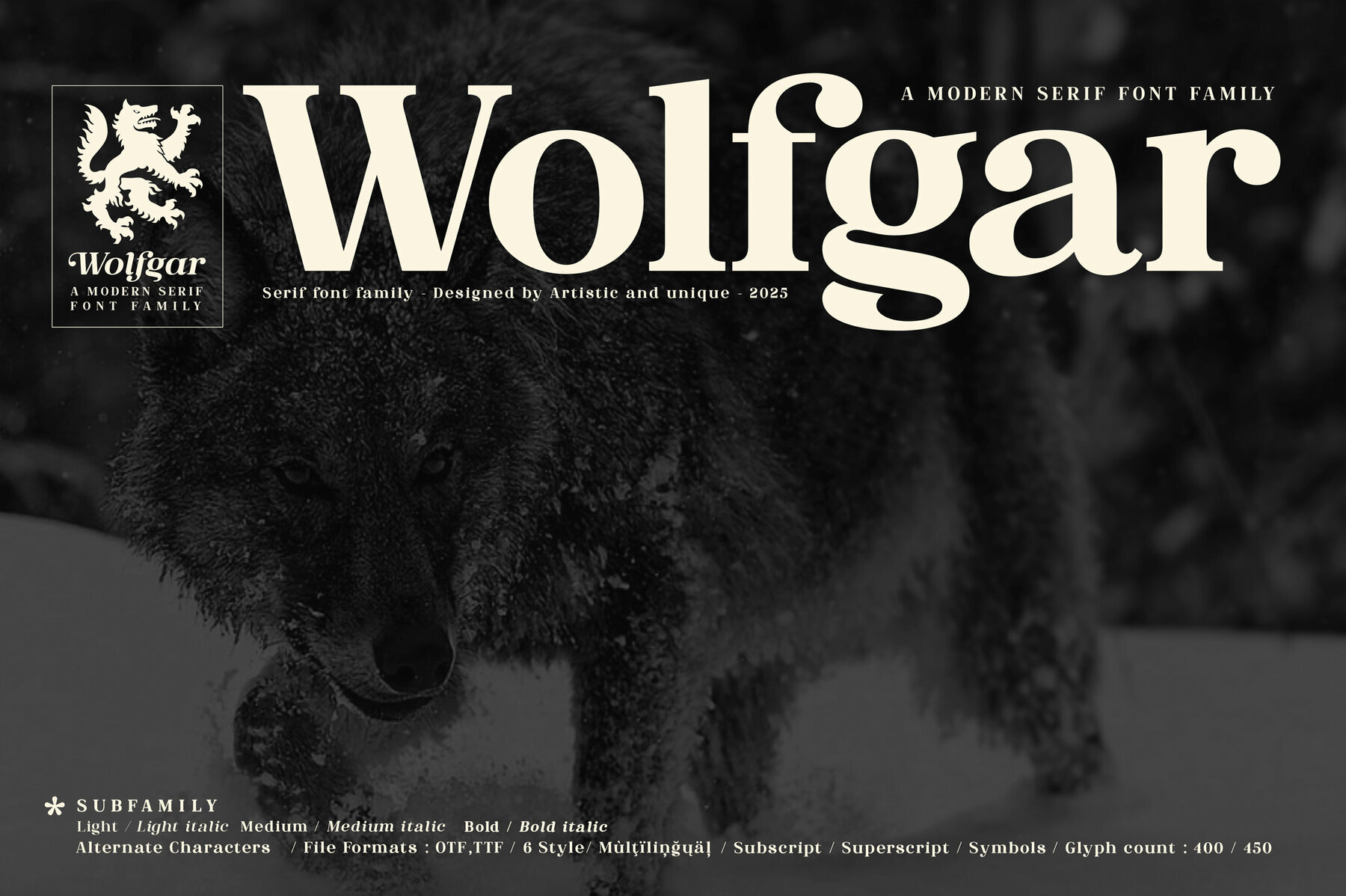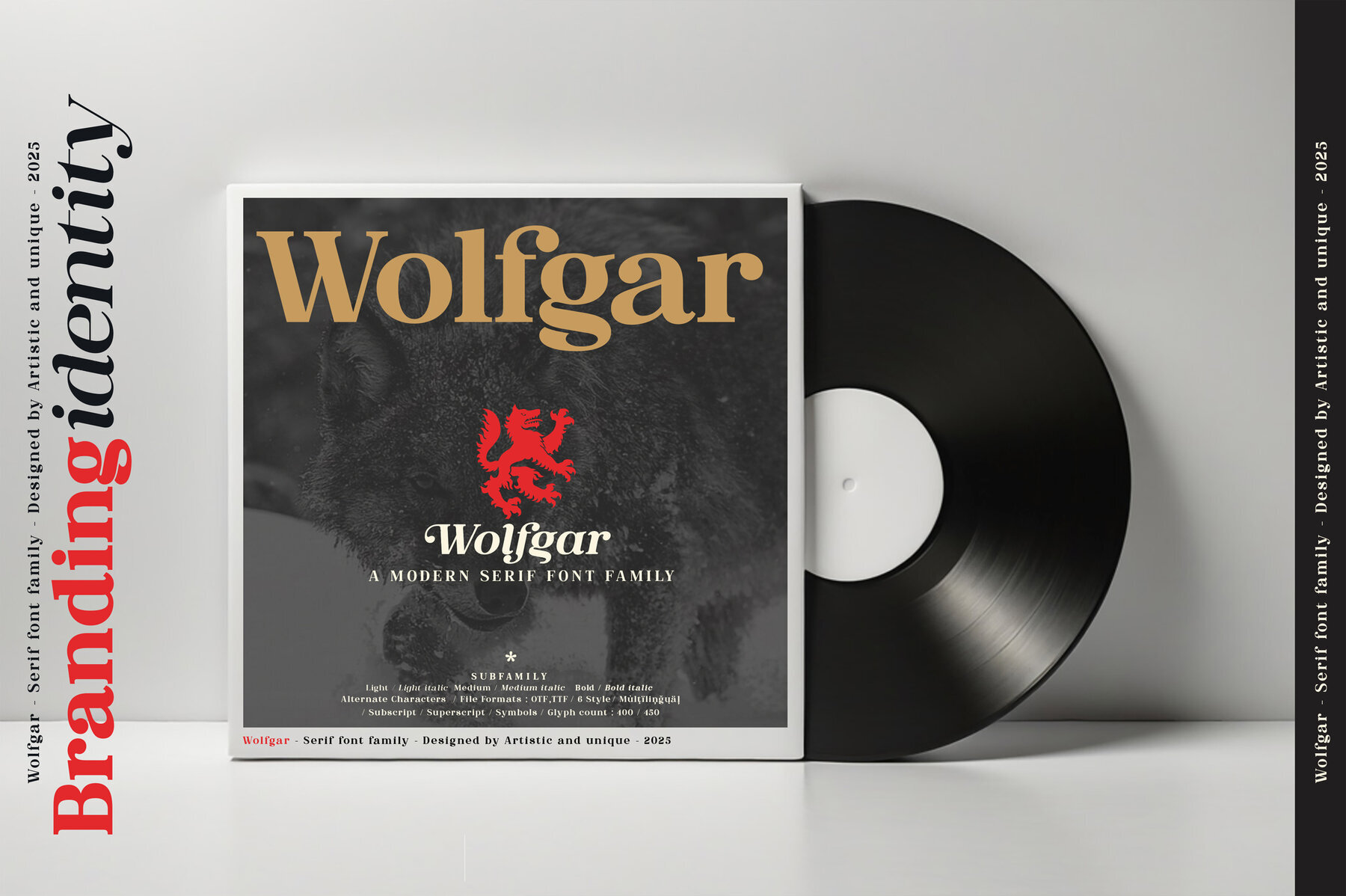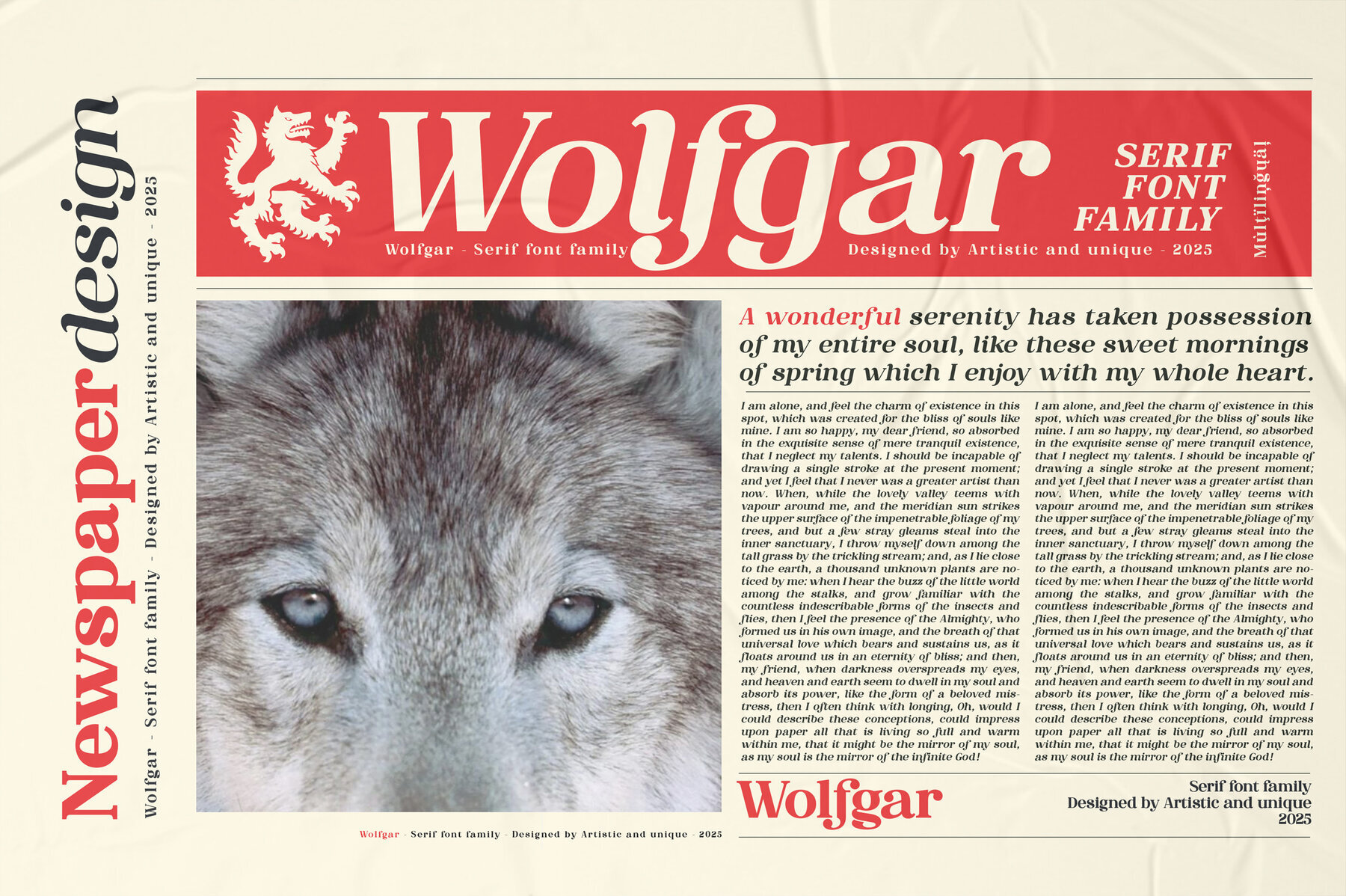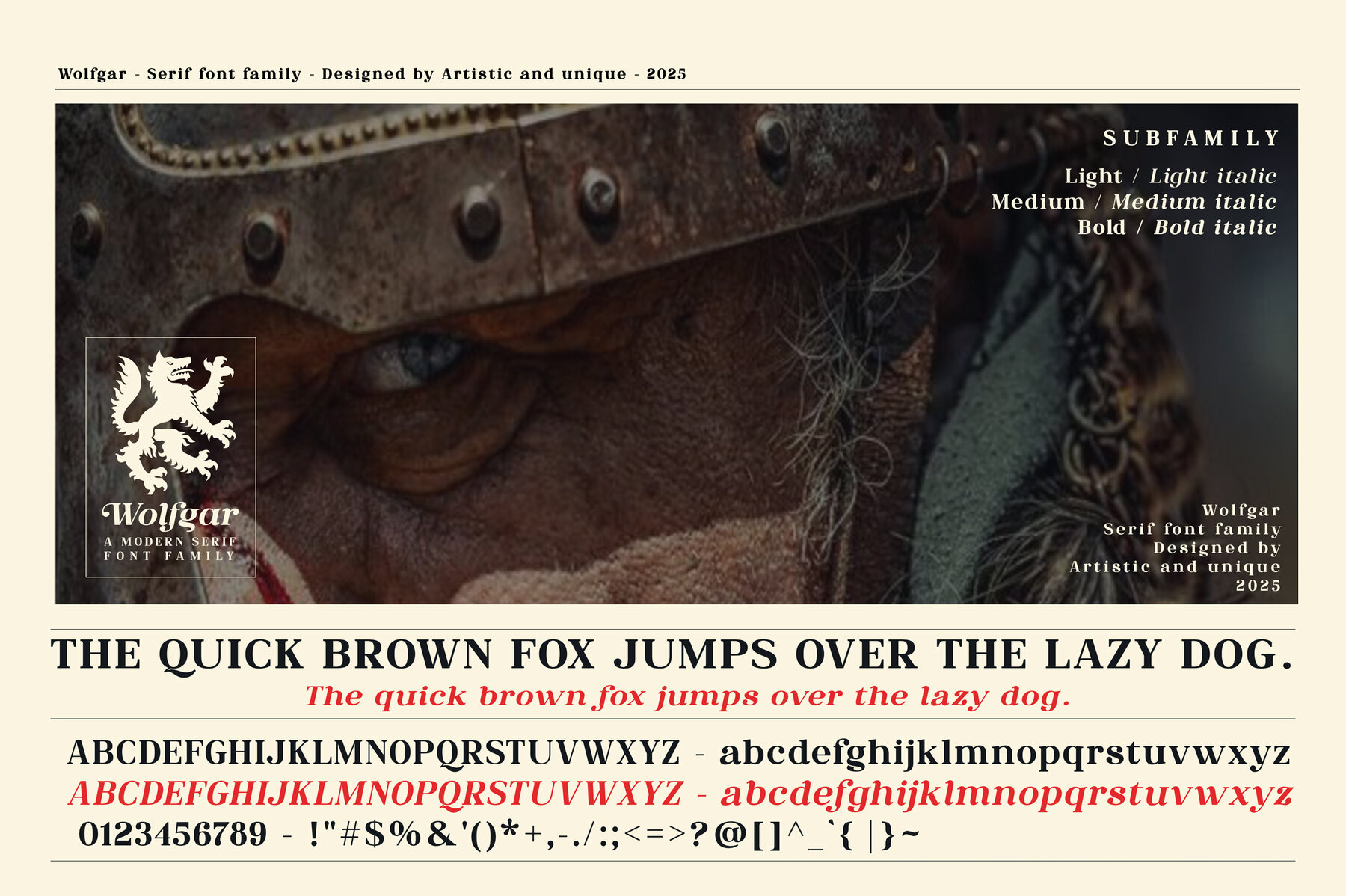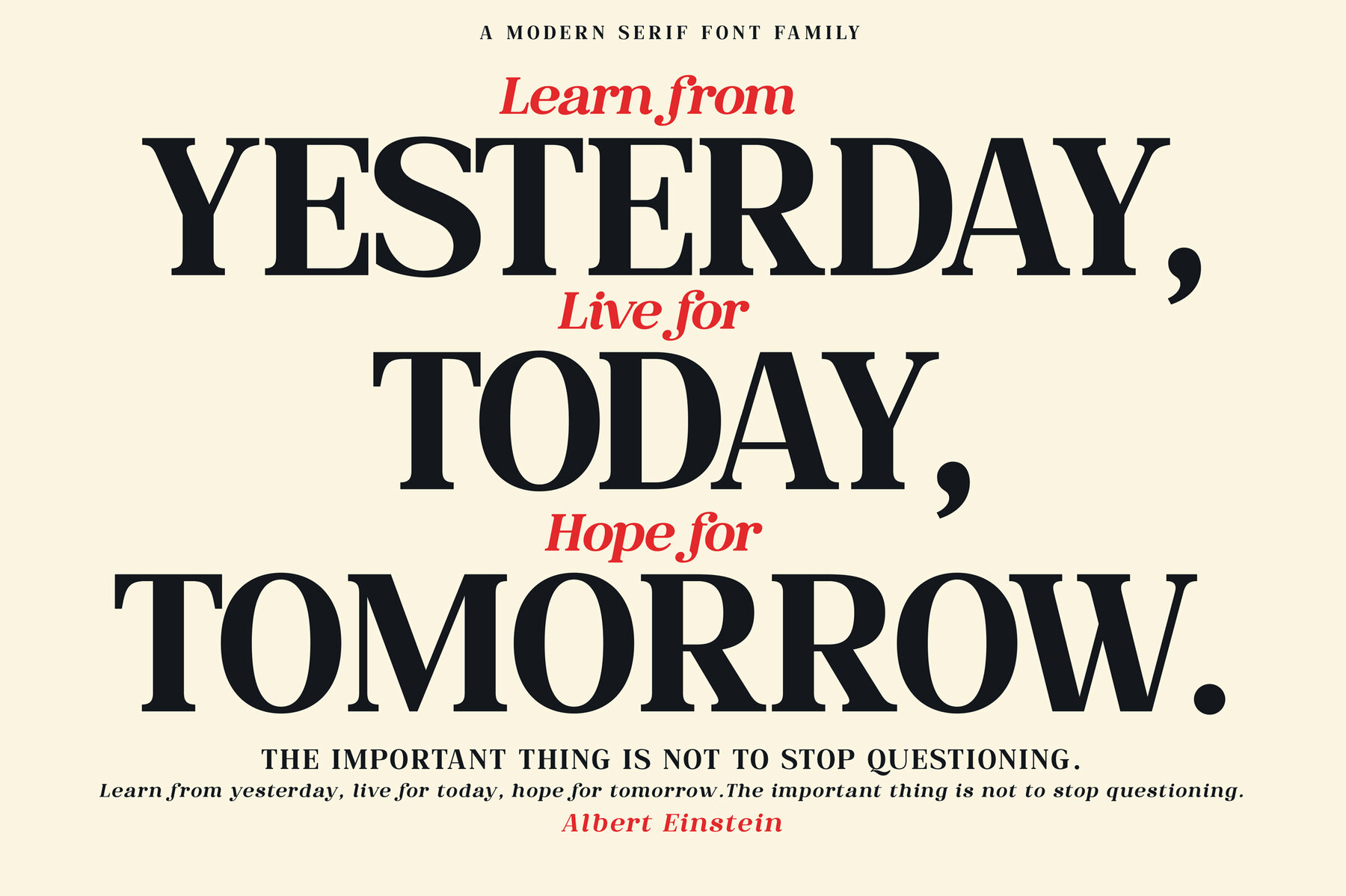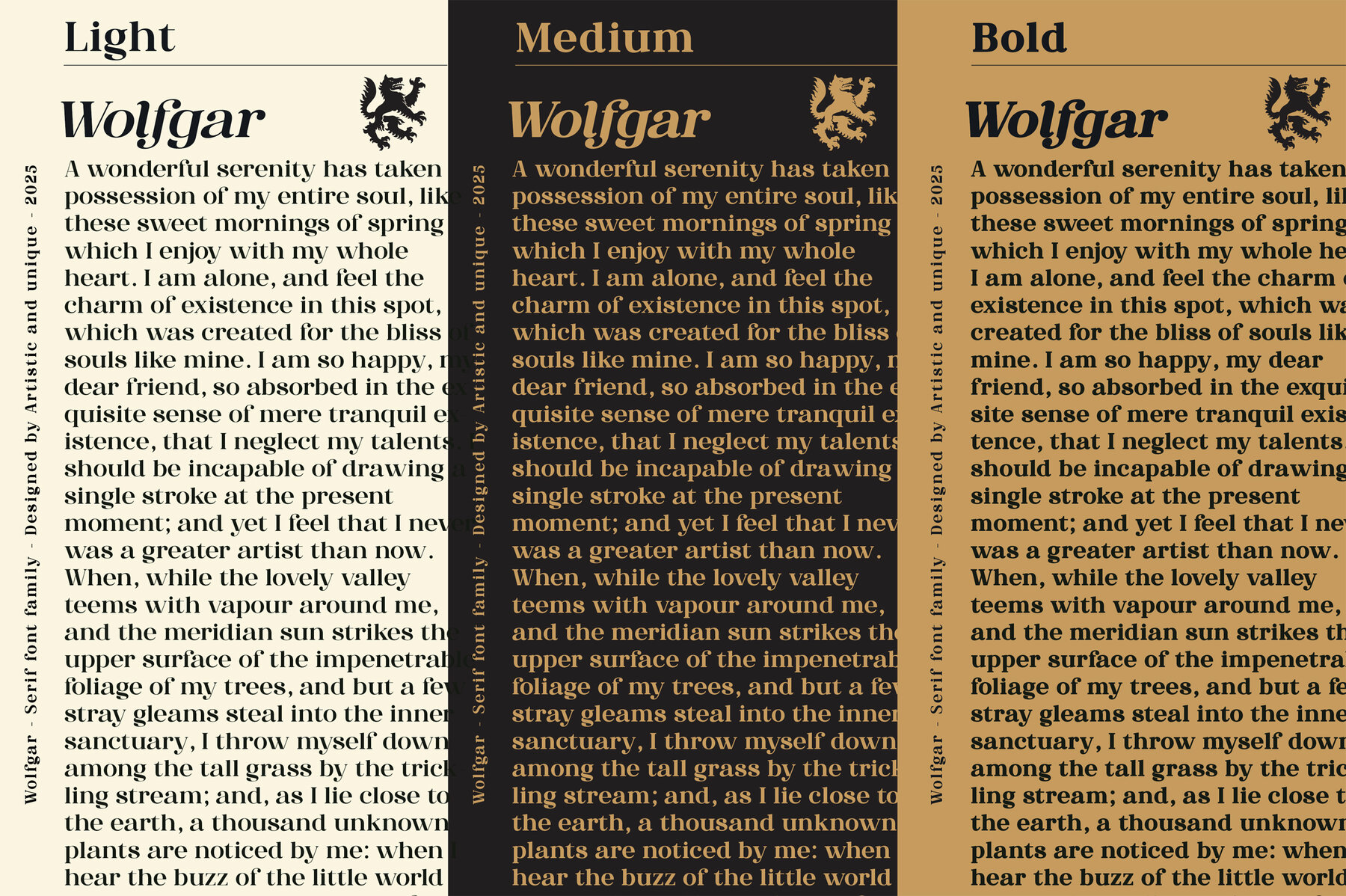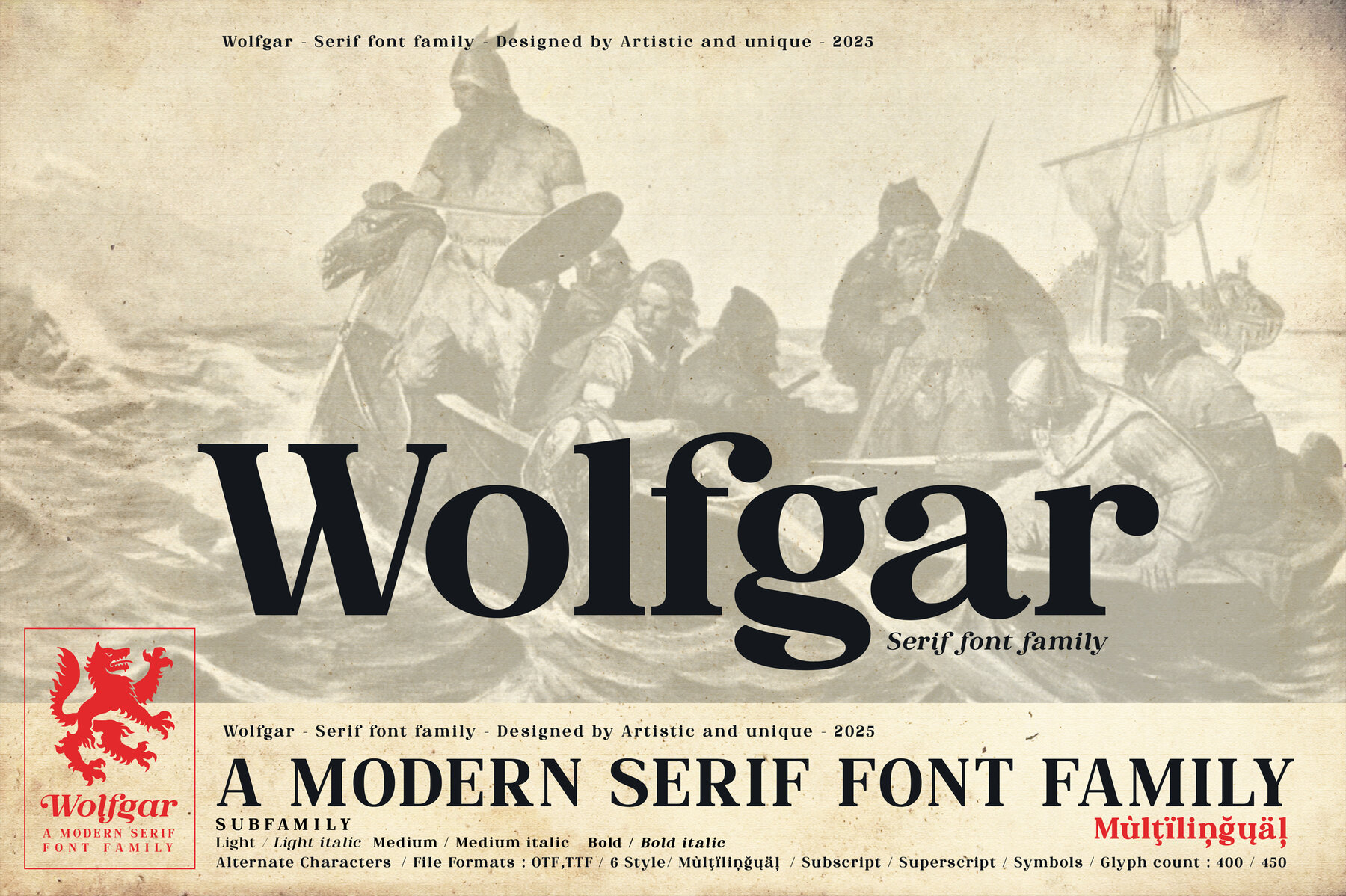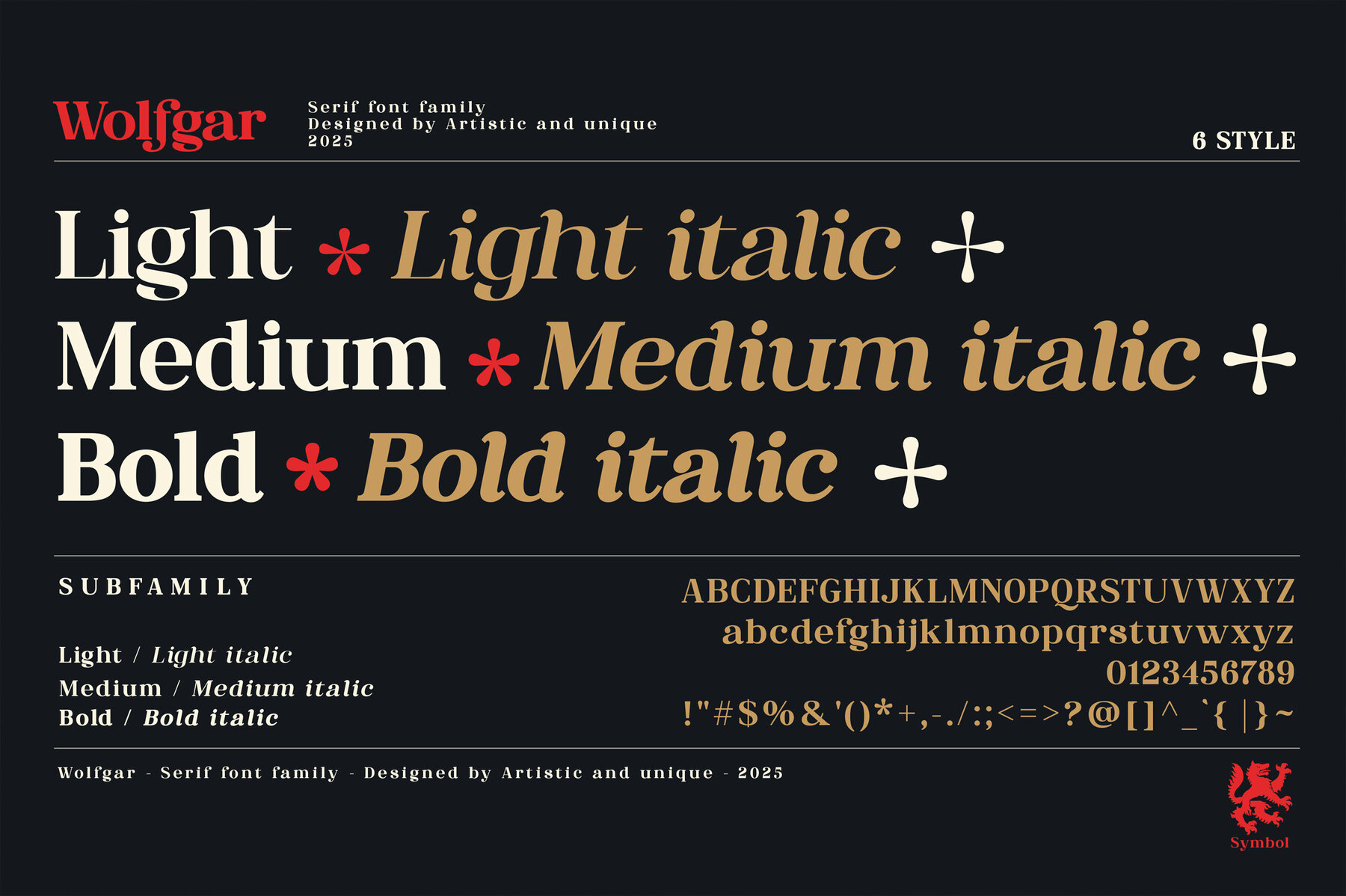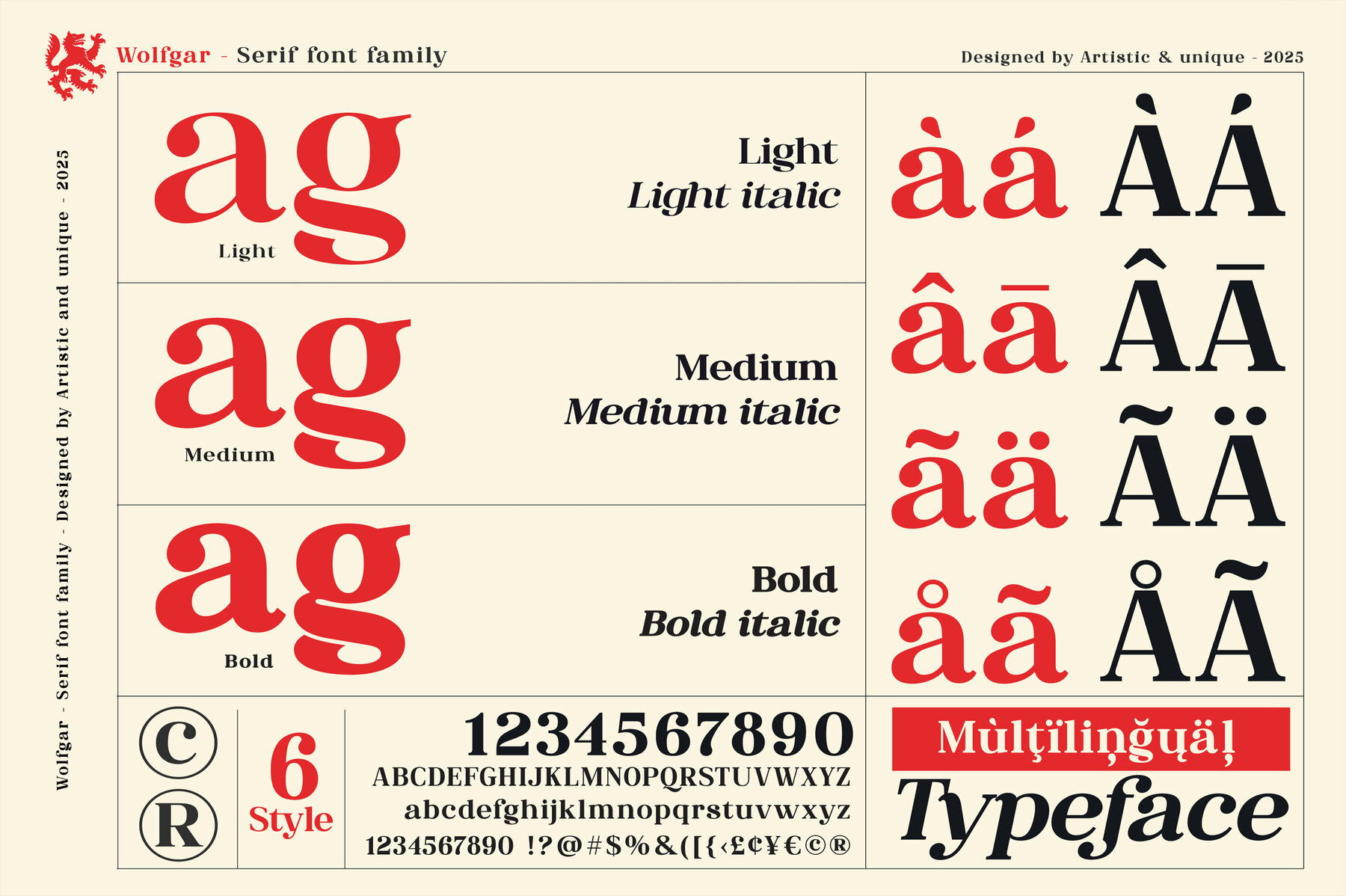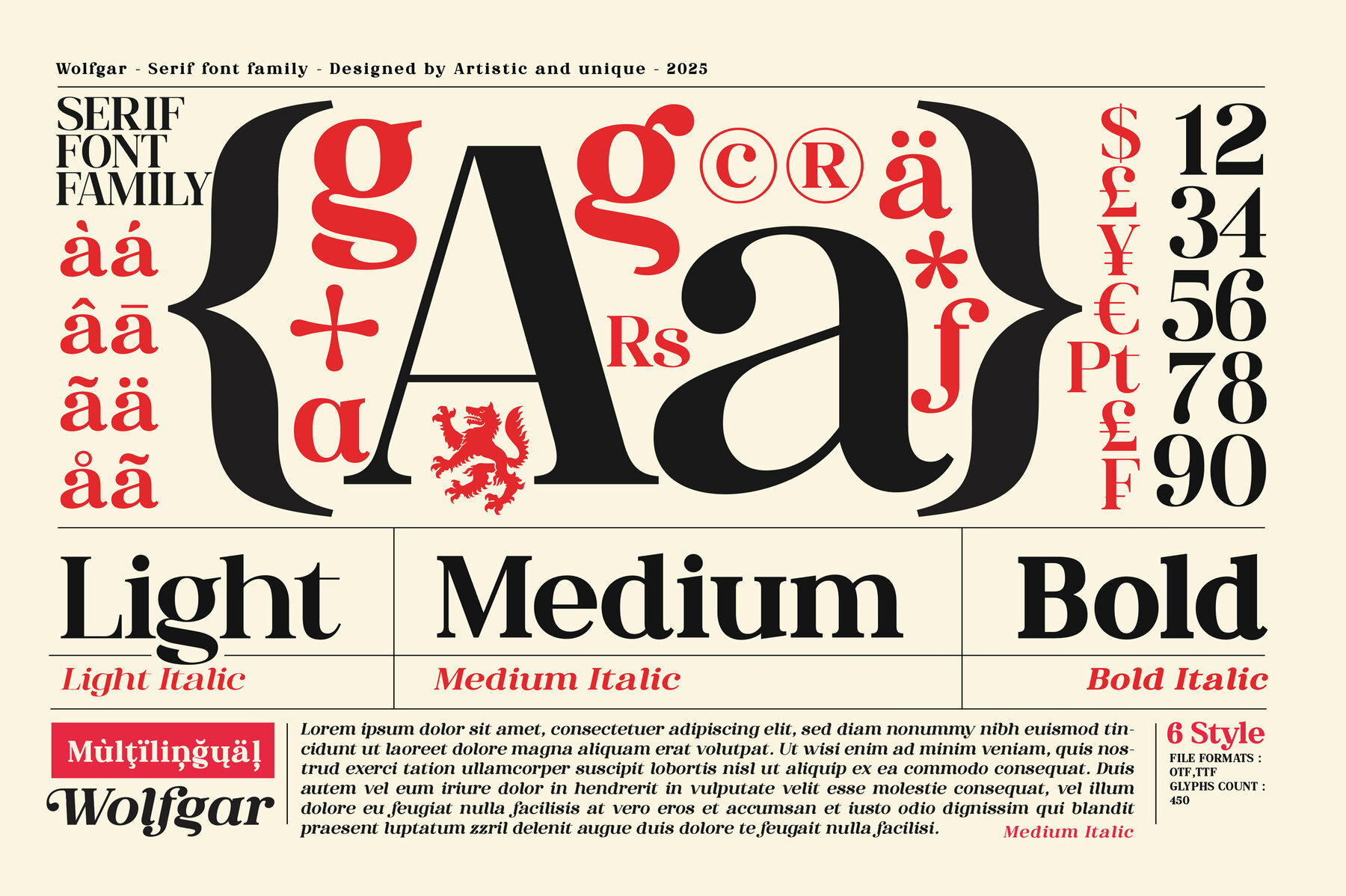
Wolfgar Font
Embodying the spirit of Viking lore, Wolfgar's serif font family offers a sophisticated array of styles perfectly fitted for diverse design endeavors. With six distinctive variations and comprehensive multilingual support, this font enhances your content through its unique character alternatives. Wolfgar shines in applications ranging from magazine editorials to branding and web design. Whether working on book titles or crafting distinctive brand identities, designers will find in Wolfgar the flexibility to execute compelling typographic compositions. Known for its powerful presence, it's particularly apt for headlines, packaging, and projects that demand a touch of elegance.Wolfgar: Versatile Serif Inspired by Viking Legends